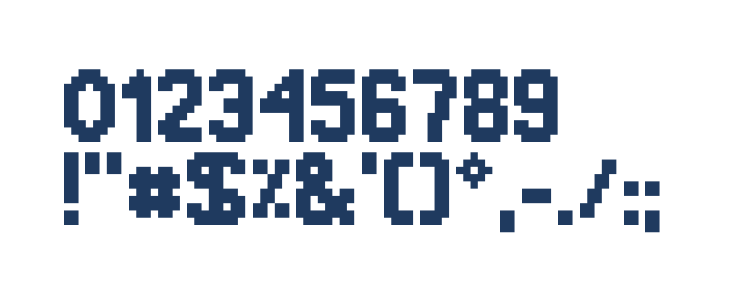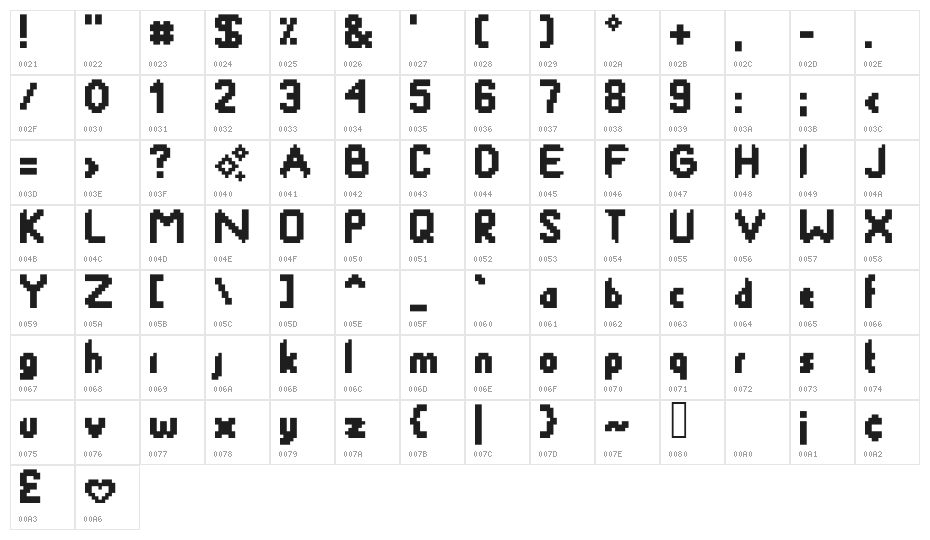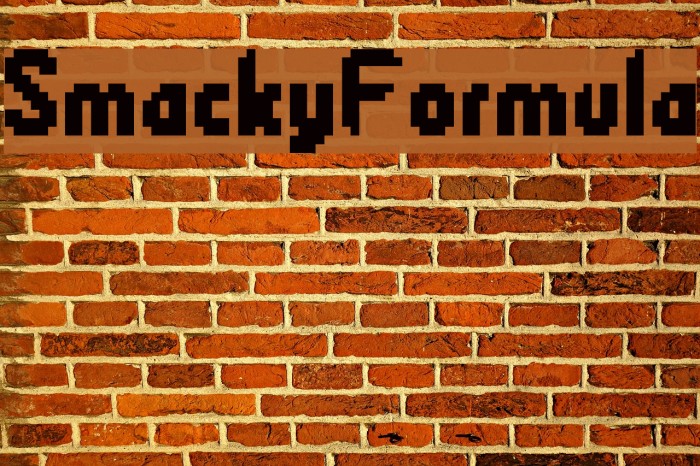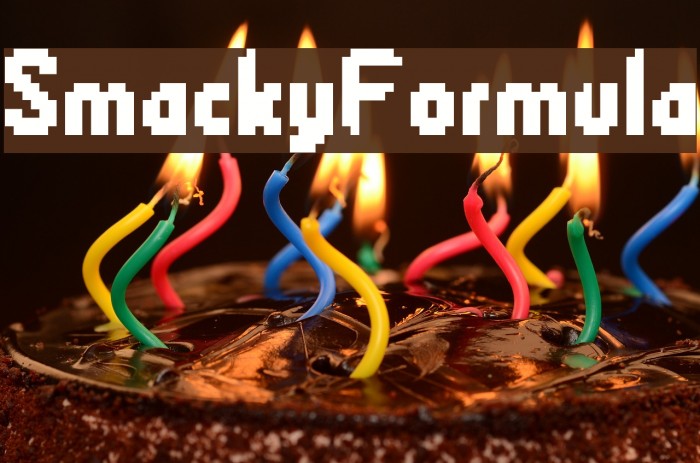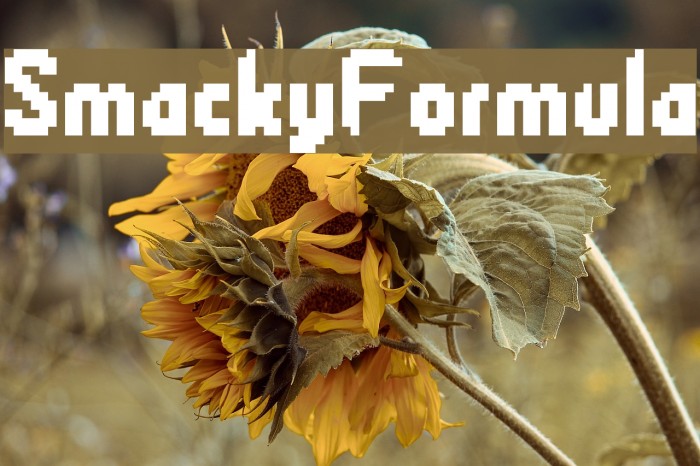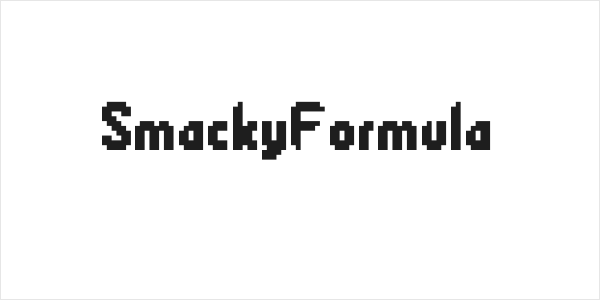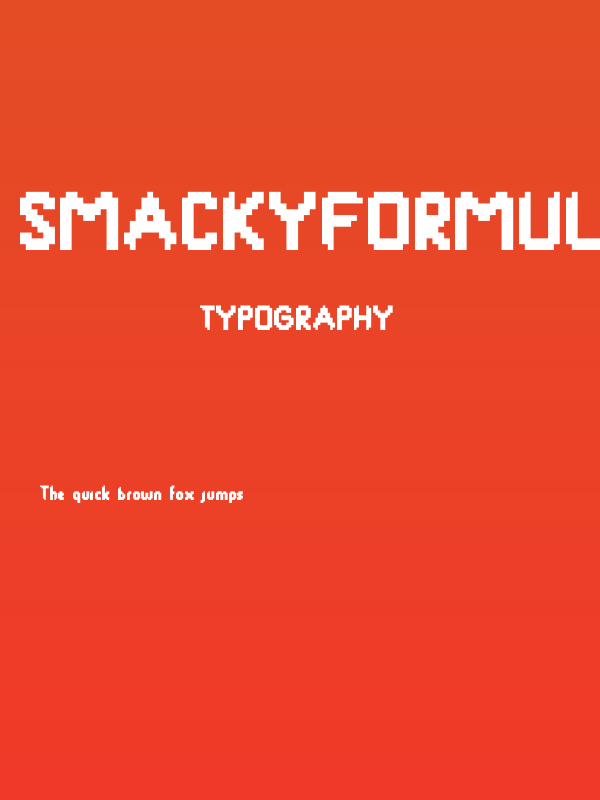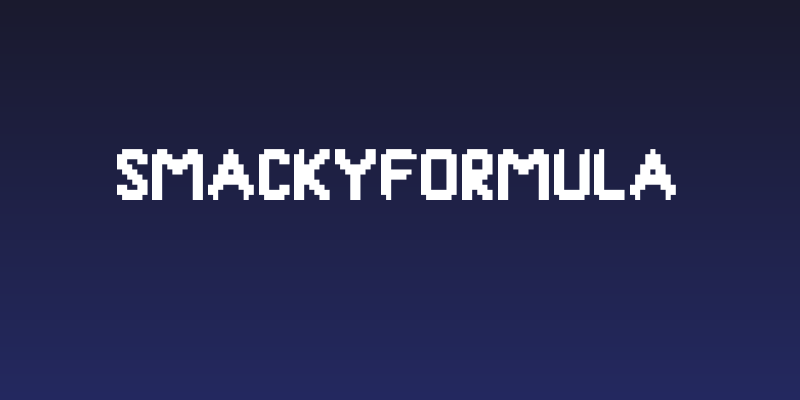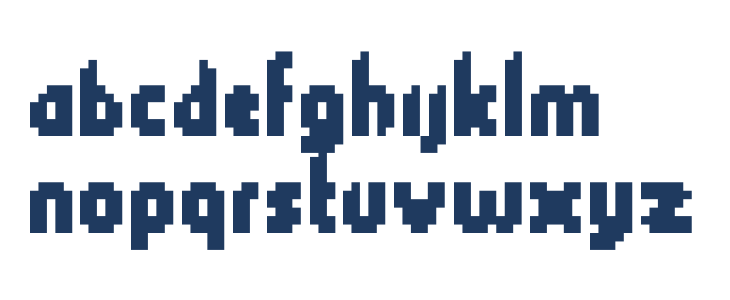
SmackyFormula Font
SmackyFormula Description
This font features a bold, pixelated design reminiscent of early digital displays and retro video games. Each character is composed of blocky, square shapes that give it a distinctly digital and geometric appearance. The uppercase and lowercase letters maintain a consistent height, contributing to a uniform and cohesive look. The numerals and special characters follow the same pixelated style, ensuring visual harmony across all elements. The font's simplicity and clarity make it highly legible, even at smaller sizes. Its nostalgic aesthetic evokes a sense of playfulness and creativity, making it ideal for projects that aim to capture a retro or tech-inspired theme.
| Overall Style | Retro, Digital |
| Proposed Projects | Ideal for video game graphics, retro-themed posters, digital art projects, and tech-related branding. |